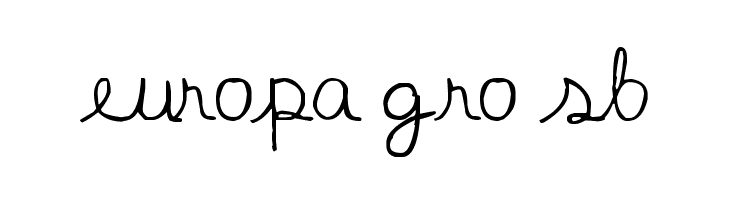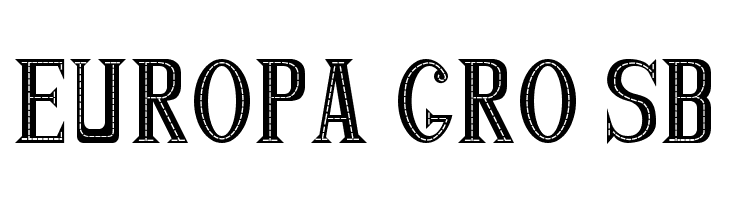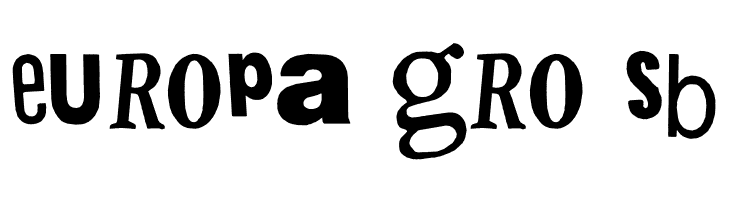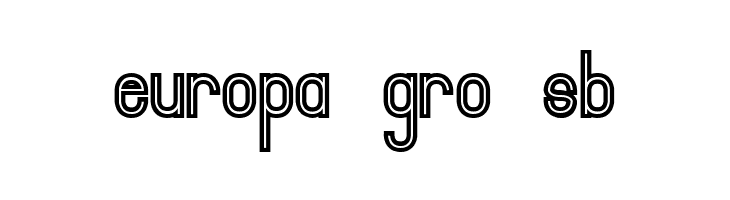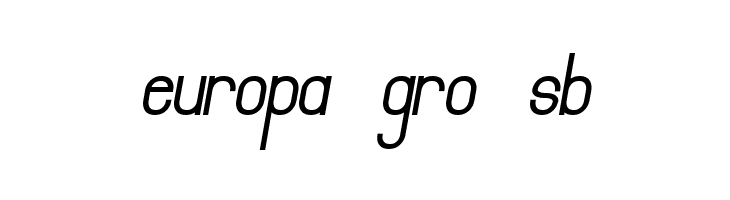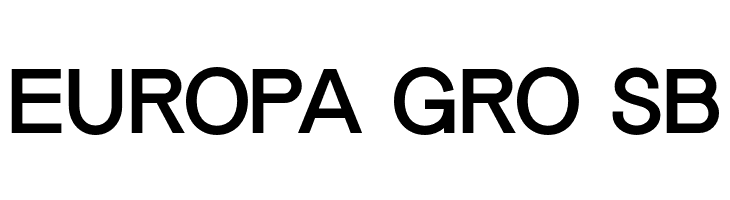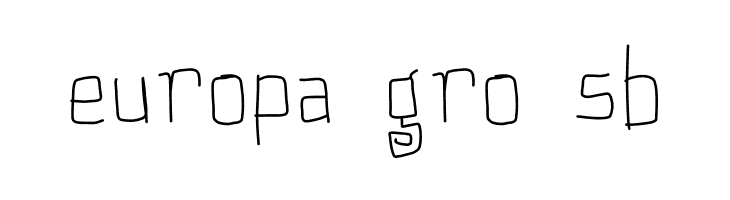
A bold, eclectic display font with punk and retro influences.
A playful, hand-drawn font with a whimsical and informal style.
A whimsical script font with elegant, flowing cursive letters and playful flourishes.
A bold, decorative font with vintage flair and intricate detailing.
A sleek, modern font with elongated, thin strokes and a sophisticated appearance.
A sleek, modern font with elongated, narrow characters and a clean aesthetic.
A sleek, modern italic font with thin, elongated letterforms.
A bold, italicized font with a modern, dynamic style.
A bold, geometric font with a vintage and decorative style.